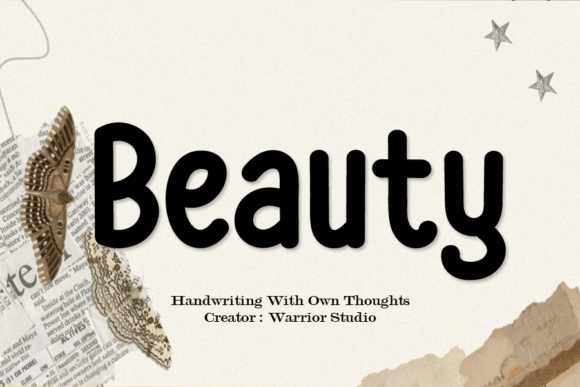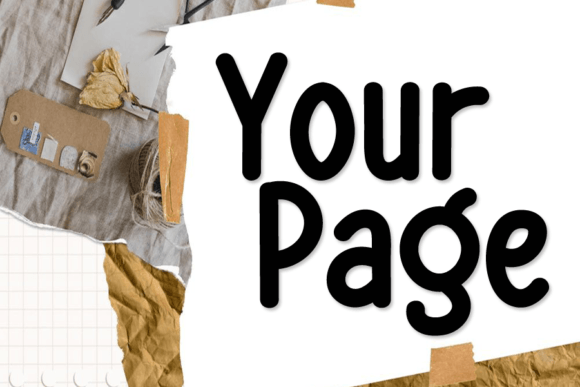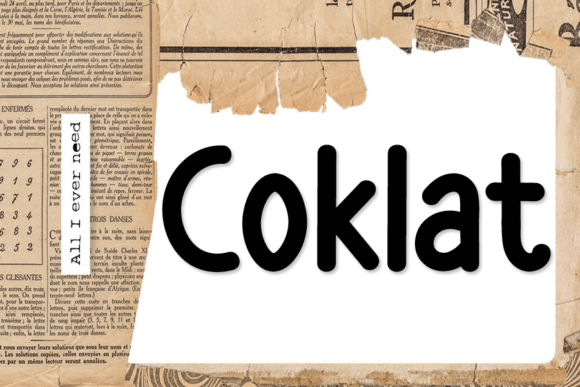
Simple Font
About Simple Font
“Simple” is a charming and casual handwritten font that offers a versatile and approachable style suitable for a wide range of design projects. With its relaxed and inviting character, this font can easily become a reliable choice for various creative endeavors, making it a go-to option for designers.
The appeal of “Simple” lies in its straightforward and unpretentious design, which makes it perfect for achieving a down-to-earth and approachable look in your projects. The font’s handwritten quality adds a touch of authenticity and personalization to your text, making it feel warm and friendly.
“Simple” is well-suited for a multitude of applications, making it a versatile choice for different design contexts. Whether you’re crafting digital designs, creating presentations, making greeting cards, designing social media graphics, or working on any project that demands a casual and friendly typeface, “Simple” fits the bill.
This font’s adaptability allows it to shine in both formal and informal settings. You can confidently use it to convey a sense of approachability and authenticity in your designs, making your text relatable and engaging to your audience.
Incorporating “Simple” into your design projects allows you to achieve a charming and relaxed typographic style. Its casual and friendly character makes it an excellent choice for adding a touch of authenticity and approachability to your next creative endeavor, ensuring that your text resonates with your audience in a warm and inviting manner. Embrace the simplicity and charm of “Simple” in your next project and see how it enhances your designs with its down-to-earth appeal.